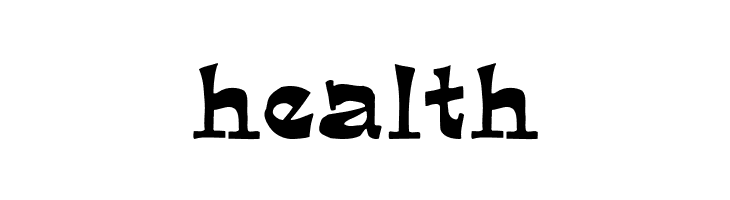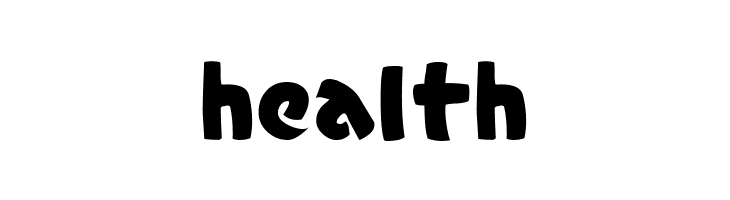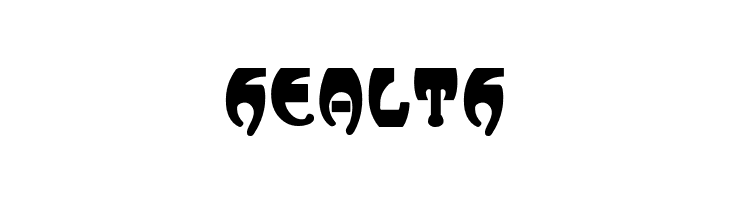
( Fonts by Rick Mueller )
A modern-vintage font with unique curves and angular details.
( Fonts by Rick Mueller )
A playful, hand-drawn font with bold, uneven strokes and quirky serifs.
( Fonts by Rick Mueller )
A playful, hand-drawn style font with bold, rounded characters.
( Fonts by Rick Mueller )
A bold, retro-style font with thick, rounded strokes and unique character shapes.
( Fonts by Rick Mueller )
A graceful script font with fluid, cursive strokes and elegant flourishes.
( Fonts by Rick Mueller )
A whimsical, elegant font with a blend of curves and angles, inspired by ancient scripts.
( Fonts by Rick Mueller )
A bold, high-contrast font with a dynamic, italicized style.
( Fonts by Rick Mueller )
A playful, wavy font with bold, irregular strokes and a whimsical style.